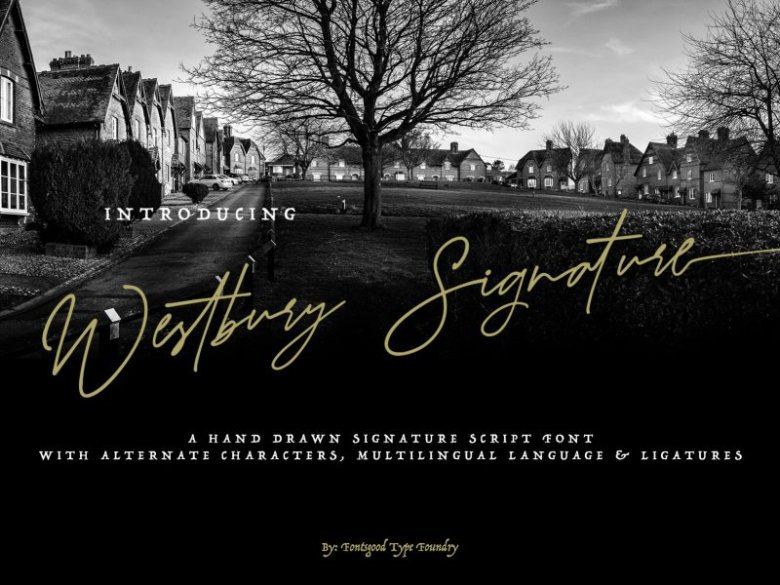
Westbury Signature Demo Font
Introducing the hand drawn signature script font “Westbury Signature”. For those of you who are needing a touch of elegant, hand made signature and modernity for your designs, this font was made just for you!